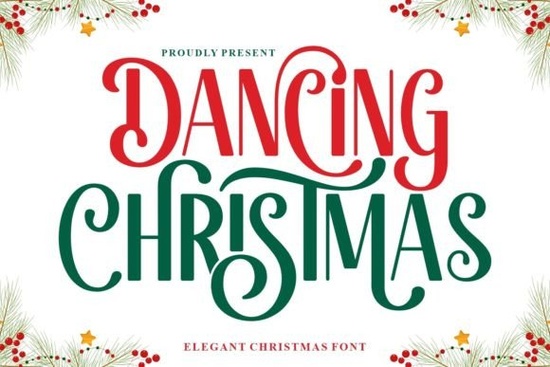
If you're looking for a handwritten Christmas font that feels both joyful and refined something that avoids looking too playful or overly formal the Dancing Christmas font fits neatly in that sweet spot. It’s not just another holiday script; its fluid, slightly swaying letterforms give the impression of movement and warmth, like ink dancing across handmade paper. Whether you're designing greeting cards for a small stationery shop, prepping holiday merch for print-on-demand, or crafting personalized invitations for family gatherings, this font brings quiet confidence to festive typography without shouting.
What makes Dancing Christmas work so well for real projects?
Unlike many seasonal fonts that lean heavily into glitter, snowflakes, or exaggerated swirls, Dancing Christmas keeps its elegance understated. The lowercase letters have gentle entry and exit strokes, and the capitals carry subtle contrast not too thin, not too bold so they hold up well at smaller sizes (think 14–18pt on folded card fronts) and scale beautifully for larger displays like wall art or social media banners. It includes standard OpenType features like ligatures and alternate characters, which help avoid repetitive-looking words especially useful when setting phrases like “Merry Christmas” or “Happy Holidays” more than once.
It pairs especially well with clean sans-serifs (like Montserrat or Poppins) for body text, letting the script shine without competing. And because it’s a display font not meant for long paragraphs it works best where attention is focused: headlines, product tags, gift tag labels, or even embroidered monograms on holiday aprons or tote bags.
Who uses this kind of font and how?
Small business owners selling handmade goods often choose Dancing Christmas for product packaging labels, especially for artisanal items like spiced honey, cinnamon candles, or hand-poured soy wax melts. Crafters use it for printable SVG files cutting machines handle its smooth curves cleanly, and the rhythm of the letters translates nicely to vinyl decals or iron-on transfers. Print-on-demand sellers appreciate how it stands out in marketplace thumbnails without looking dated or overly cutesy next to bestsellers.
Designers also mix it thoughtfully with other Creative Fabrica fonts. For example, if you’re building a full holiday suite say, a matching invitation, menu card, and place card you might pair Dancing Christmas with Tiny Rex for playful subheads or Rushk for a bolder, modern contrast on signage. For a vintage-leaning collection, Preppy Hunky adds cheerful structure, while Black Artist offers grounded, expressive weight when you need something more grounded and human-scaled.
How does it compare to other popular holiday fonts?
Many holiday scripts rely on heavy bounce or exaggerated terminals but Dancing Christmas doesn’t need those tricks to feel intentional. Its charm comes from consistency and flow, not ornamentation. That makes it more versatile across mediums: it reads clearly on screen, prints crisply on textured cardstock, and holds up well when converted to vector paths for cutting or embroidery.
You’ll find similar energy in fonts like Dancing Christmas font, but fewer options balance legibility and personality this cleanly. Compare it to Tiny Rex font (more whimsical, better for kids’ themes), Rushk font (bolder, great for posters), or Preppy Hunky font (retro-diner charm). Each has its place but for classic, graceful festivity, Dancing Christmas is a reliable go-to.
- It’s a display font best used for short phrases, not body copy or long lists.
- Test spacing carefully when pairing with all-caps sans-serifs; sometimes adding 20–30 units of tracking helps readability.
- Check your software’s OpenType panel to enable stylistic alternates they add nuance to repeated letters like “o” or “e.”
- If you’re using it for physical products (stickers, mugs, etc.), confirm licensing covers commercial use Creative Fabrica’s standard license does, but always double-check the product page.
Before you start designing, try writing out your most common holiday phrases (“Season’s Greetings,” “Let’s Celebrate,” “With Love This Holiday”) in Dancing Christmas. See how the rhythm feels. Does it match the tone of your brand or project? If yes you’ve found a quiet, confident way to say “it’s Christmas” without saying it loudly.